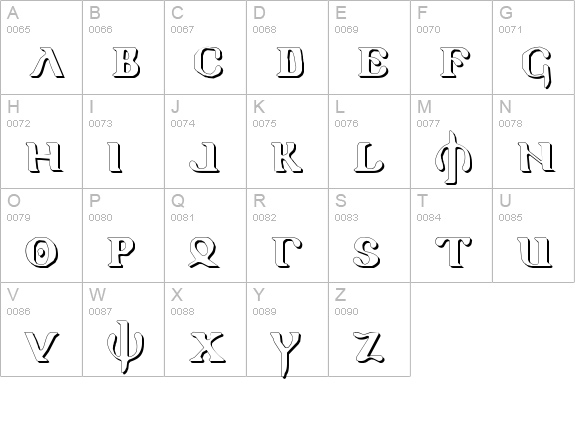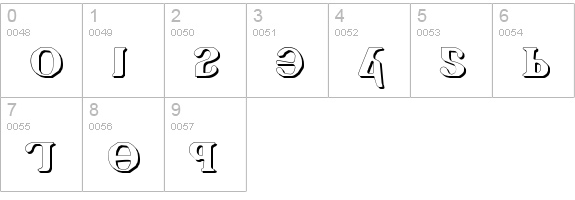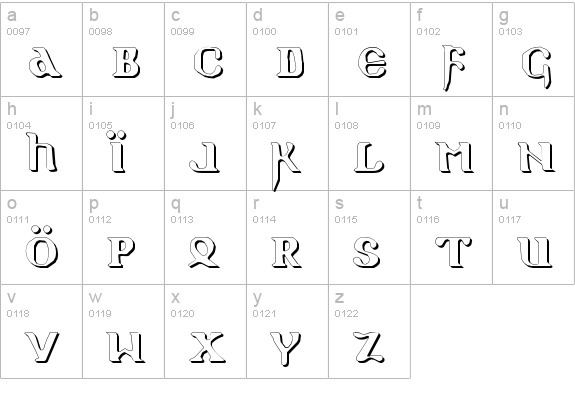
Holy Empire Shadow Font Details
Holy Empire Shadow font is a bold and striking typeface that exudes a sense of mystery and grandeur. With its intricate shadow effect, this font adds depth and dimension to any project, making it perfect for titles, headlines, and other display purposes. The elegant and regal design of Holy Empire Shadow font makes it a versatile choice for a wide range of creative projects. This font is not only visually captivating but also versatile and easy to use. Whether you are designing a poster, logo, or website, Holy Empire Shadow font will make a bold statement and leave a lasting impression on your audience. The best part is that Holy Empire Shadow font is available for free download at FontsMarket.com. Now you can add a touch of sophistication and drama to your designs without breaking the bank. Download Holy Empire Shadow font today and unleash your creativity with this stunning typeface.